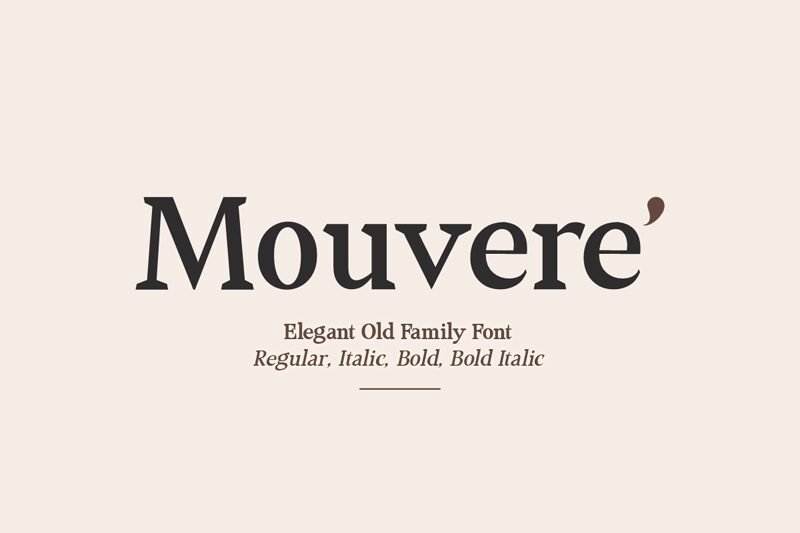
Mouvere' Bold
Mouvere' Bold font by Fikryal Studio is a free serif font with an elegant, classy and sophisticated style. The typeface’s unique features make it stand out among others in the same category. One of its strongest recognisable elements is the distinctive serifs on each character. Best used for large size text applications such as titles/headings, Mouvere’ still maintains its refined presence in smaller usage sizes.